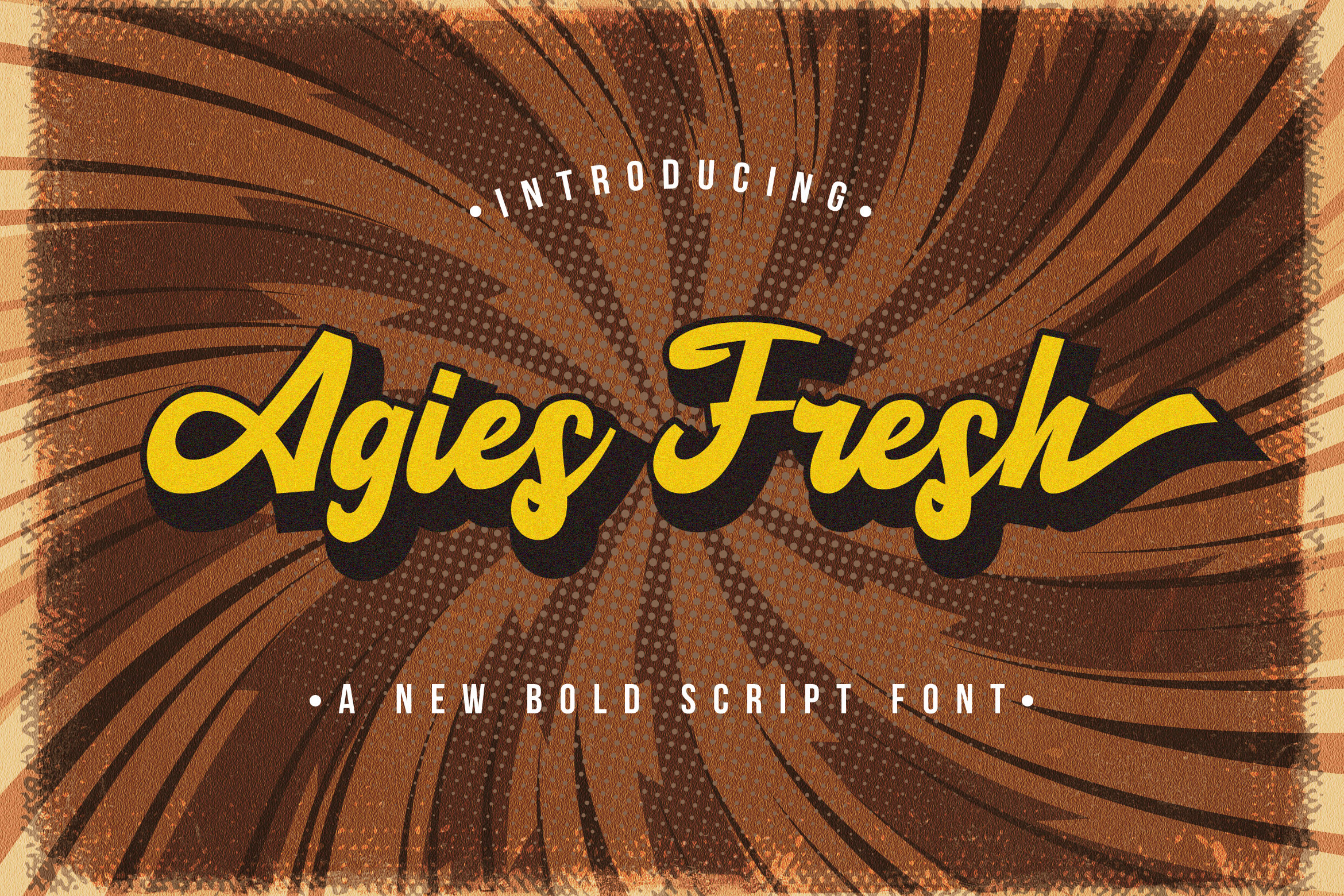
Agies Fresh - Retro Bold Script Font
Introducing Agies Fresh - Retro Bold Script Font
Agies Fresh is a strong and bold script font. It’s curved and rounded in every single touch, and has an unique vintage and retro styles that’s perfect for branding. The Agies Fresh font is suitable for all your retro, vintage, and 80s style projects.